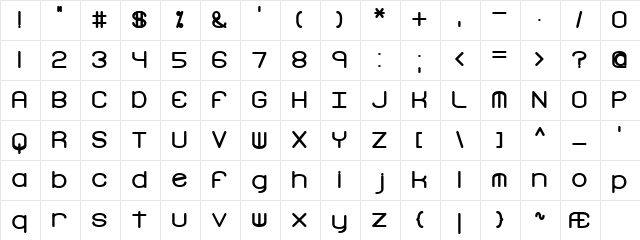
Freak Turbulence BRK Regular
Design Context for Freak Turbulence BRK Typeface
Freak Turbulence BRK takes a measured approach to typography — its balanced proportions and neutral character make it a reliable workhorse for both digital and print work.
Pro Tip: Use Freak Turbulence BRK in both headline and body roles to test its range before committing to a single application.